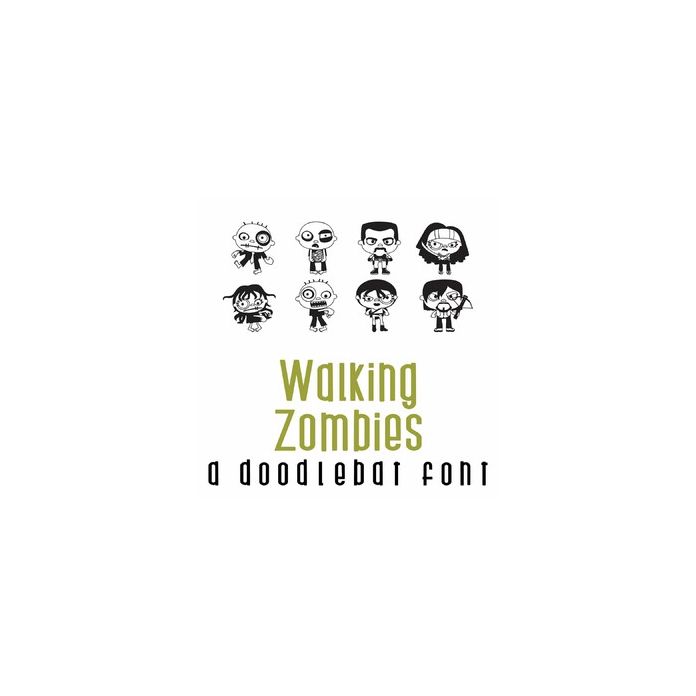
This fun doodlebat font features 26 heroes and villains zombies fighting to keep humanity alive. This collection is perfect for Halloween, card making, crafting, planner stickers, scrapbooking and more!